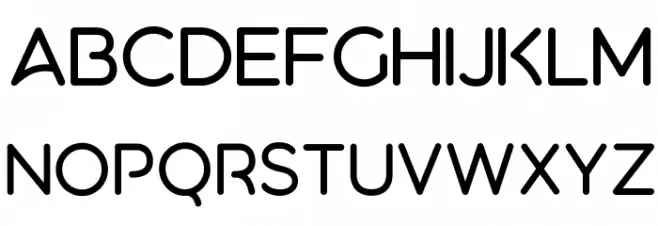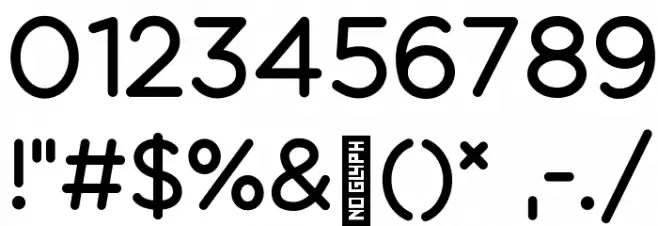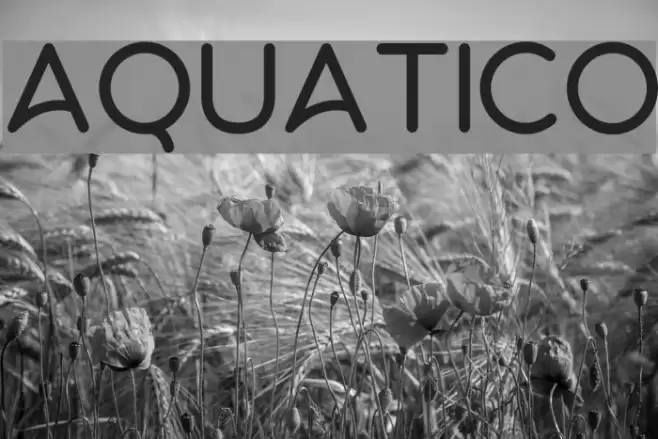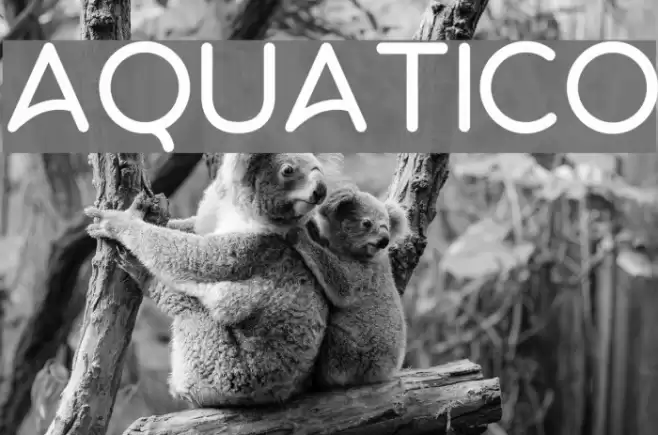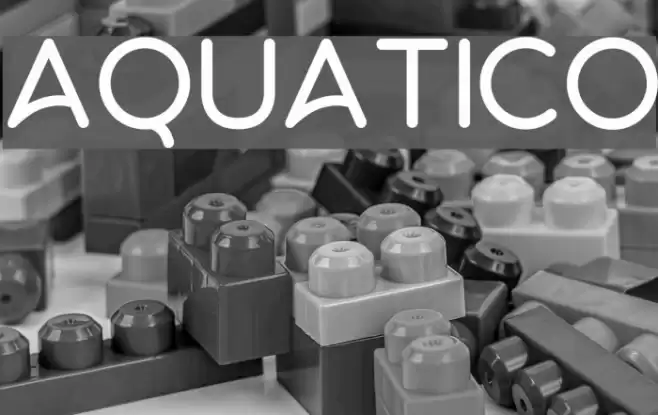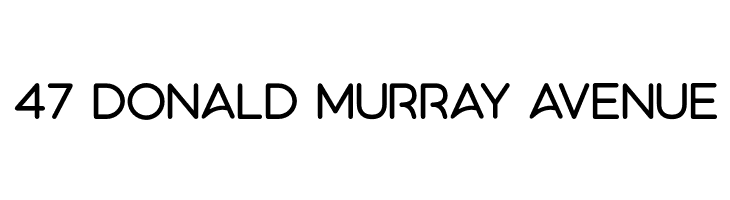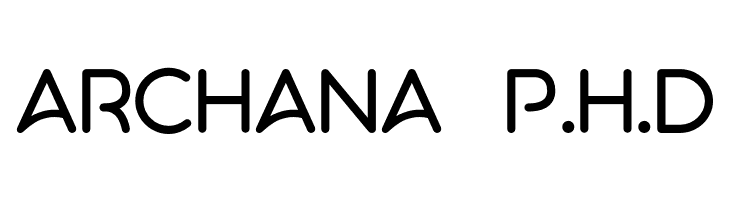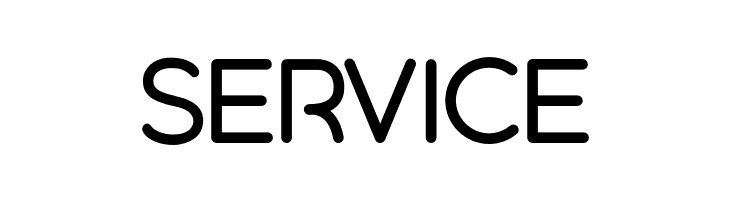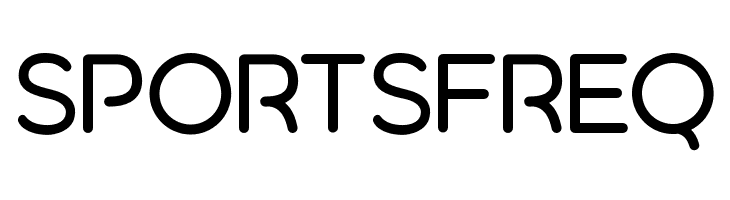
Aquatico
This font features a clean, modern design with rounded edges and a geometric structure. The uppercase and lowercase letters maintain a consistent style, emphasizing simplicity and readability. The numerals are distinct and align well with the overall aesthetic, making them easy to distinguish. The special characters are crafted with the same attention to detail, ensuring they complement the alphabetic characters seamlessly. This font's uniform stroke width and balanced proportions make it versatile for various design applications.
A modern, geometric font with rounded edges and consistent stroke width.
- Proposed Projects: Ideal for branding, web design, and editorial projects where clarity and modernity are key.